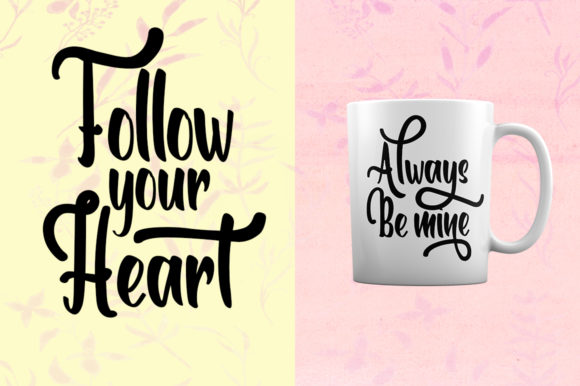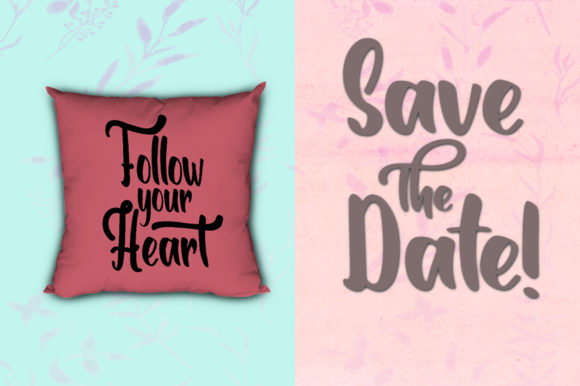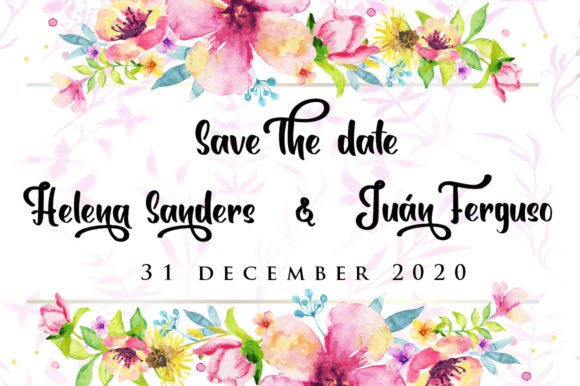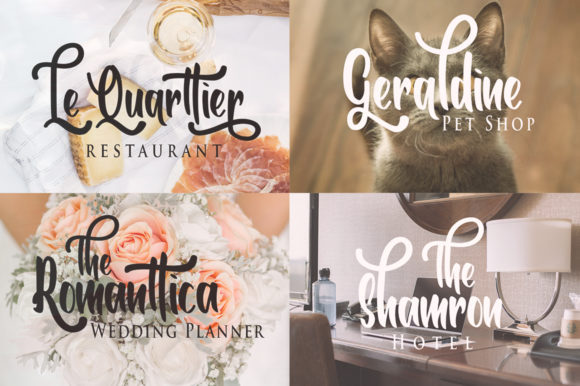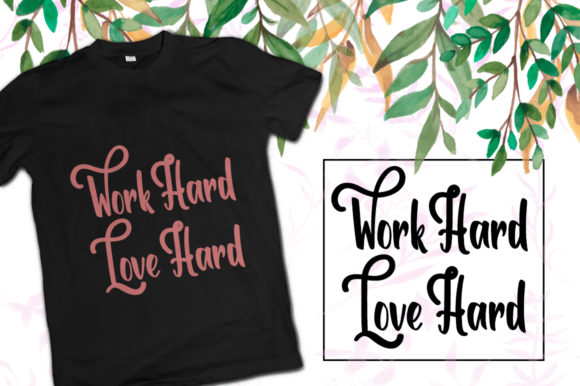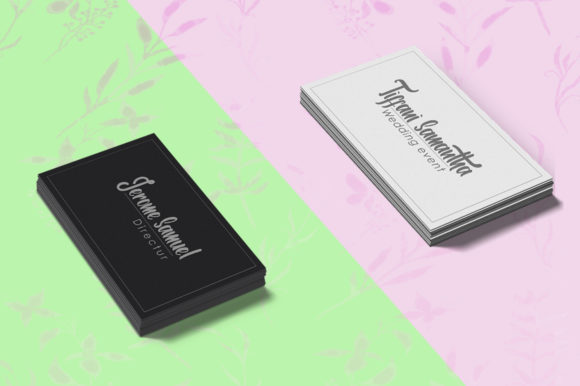
Introduction to Romanttica Font
The Romanttica is a modern handwritten brush font.
The nodes are reduces gently so itโs clean and smooth in every character It can be used for various projects such as invitations, cards, gifts, branding, logos and every other design which needs an elegant touch.